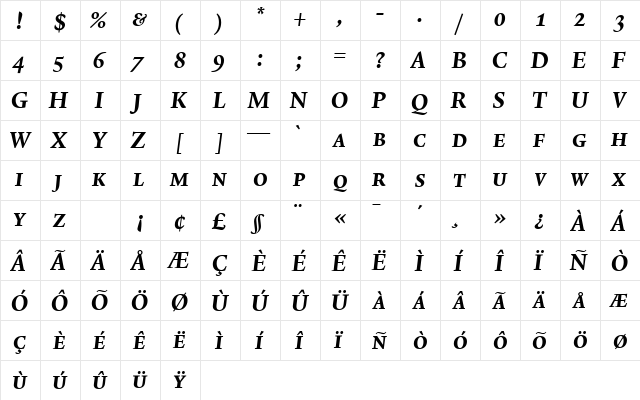
Lexicon No1 Italic D Exp Font Preview
Lexicon No1 Italic D Exp
Design Context for Lexicon No1 Typeface
Lexicon No1 offers clean, dependable letterforms without strong stylistic allegiance, making it a practical choice for designers who need flexibility. The slanted form adds forward momentum and visual energy.
Pro Tip: Try Lexicon No1 for annotation and caption copy alongside an upright companion — the contrast in angle creates a dynamic but ordered typographic system.